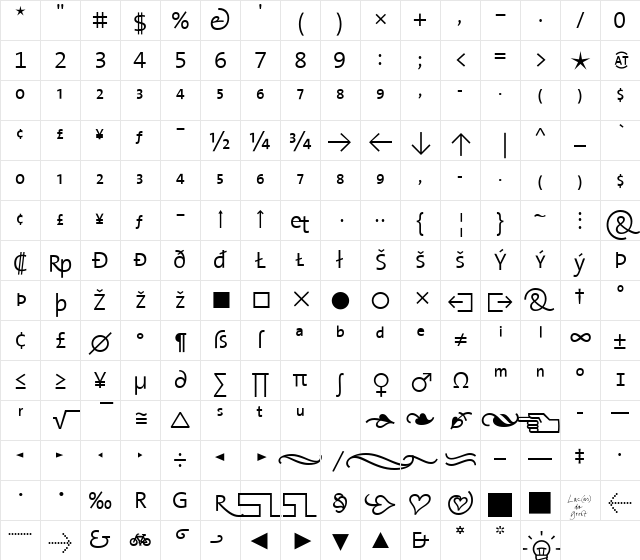
TheSansExpert-SemiLight Roman
Complete TheSansExpert-SemiLight Roman glyph index. Displaying only characters natively supported by TheSansExpert-SemiLight Roman font.
Design Context for TheSansExpert-SemiLight
TheSansExpert-SemiLight is a composed and adaptable typeface that performs quietly and consistently across a wide range of design contexts. Its slender proportions lend an understated elegance to any composition.